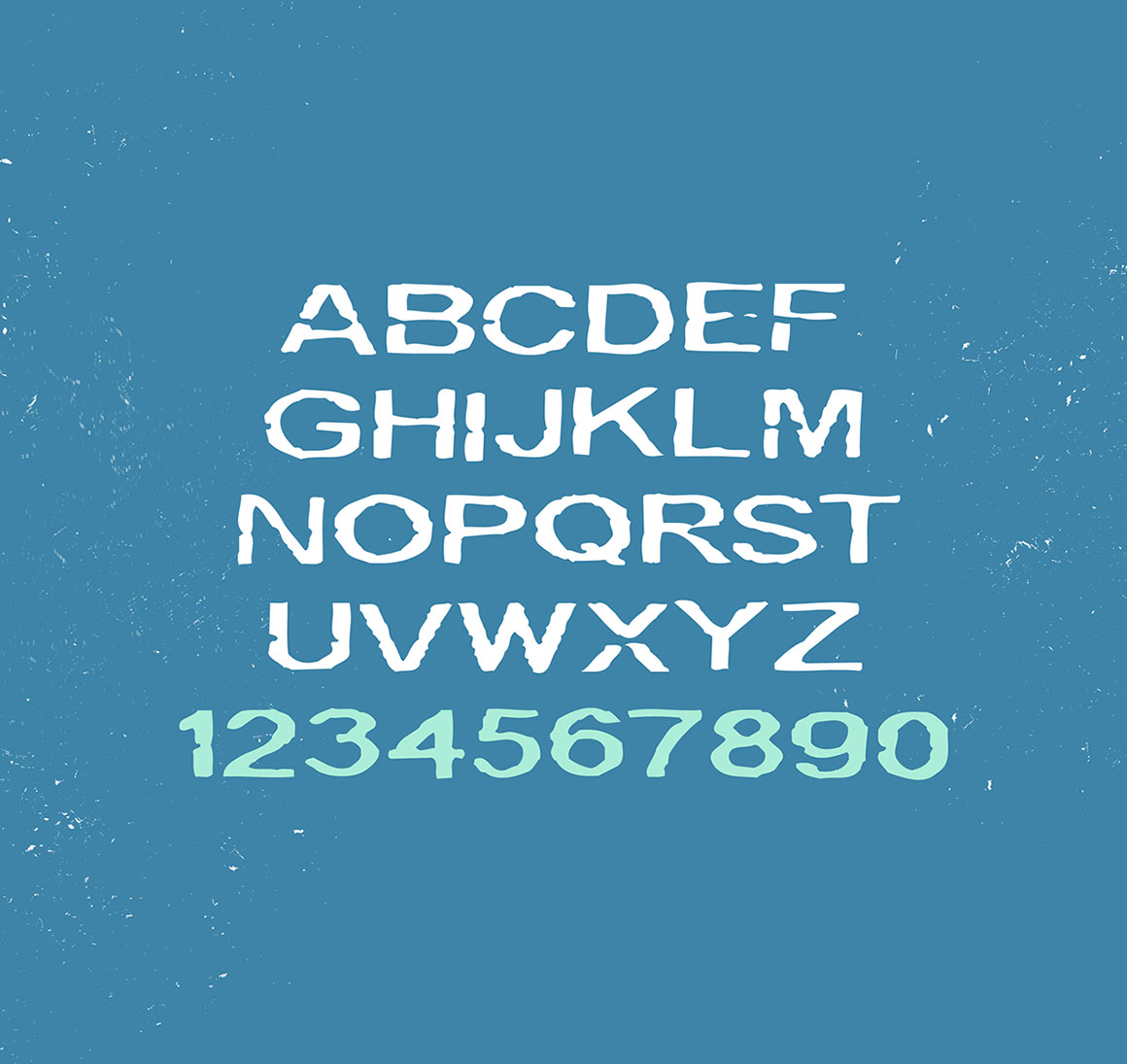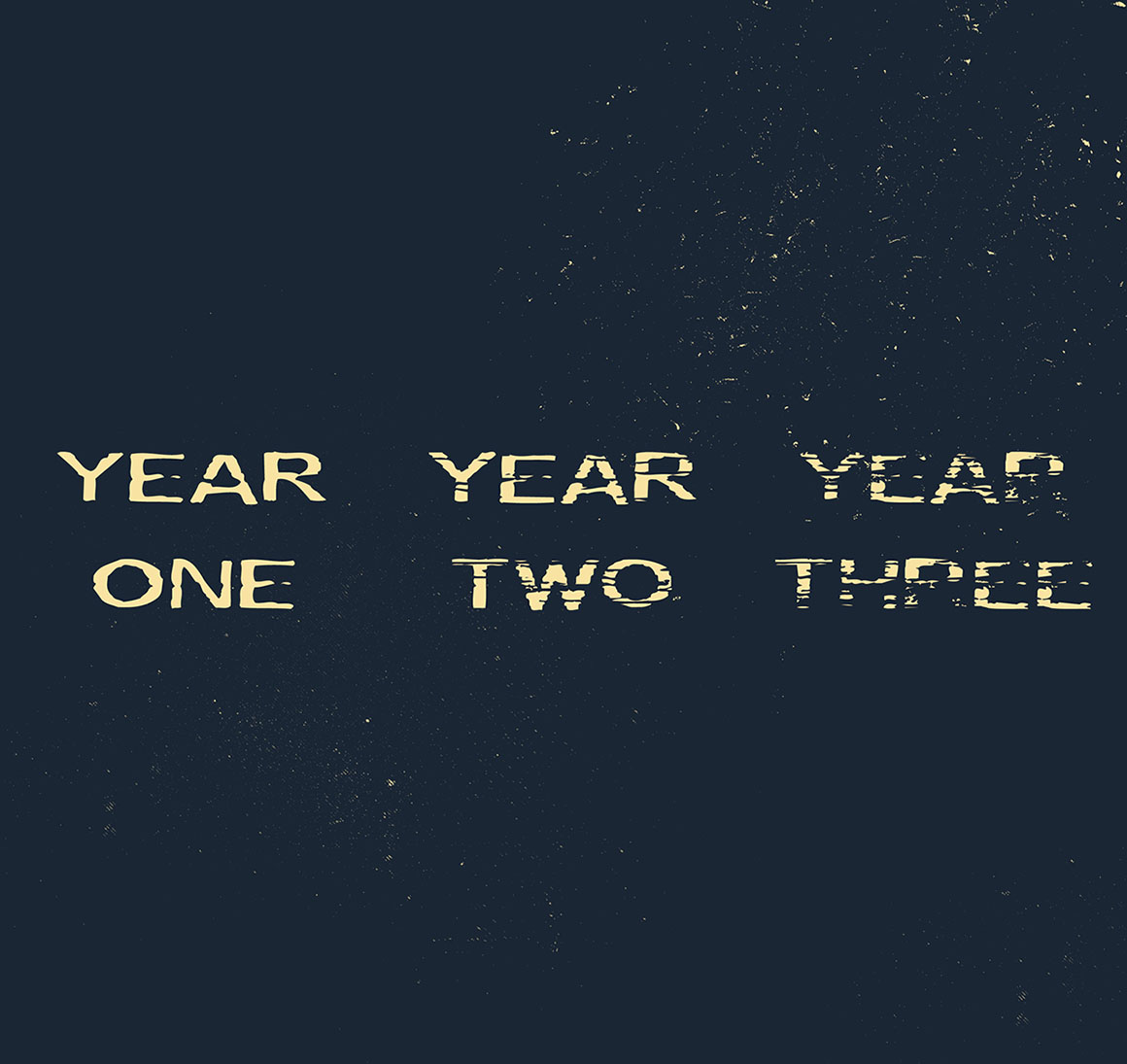
Scratch – Free Grunge Font
This cool grunge style custom font is from Carl Seal. With unique grunge style and 3 alternatives is great for your new creative projects. Download and enjoy ;)